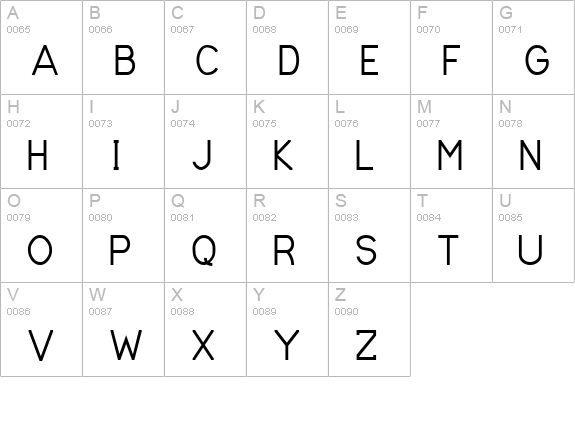
Math Major Font Details
Introducing Math Major font - a meticulously crafted typeface designed for all the math enthusiasts out there. This font is the perfect blend of elegance and functionality, making it an ideal choice for any math-related project. With its clean and precise lines, Math Major font captures the essence of mathematical precision, while adding a touch of sophistication to your designs. Whether you are working on an academic paper, a textbook, or a presentation, this font will bring clarity and professionalism to your work. But what truly sets Math Major font apart is the fact that it is completely free. Yes, you heard it right - this incredible font is available to download at absolutely no cost. So, whether you are a student, a teacher, or a professional mathematician, you can enjoy the benefits of this exceptional font without spending a penny. To get your hands on Math Major font, simply visit FontsMarket.com, the leading online platform for font enthusiasts. There, you will find a vast collection of fonts, including Math Major, all available for free download. FontsMarket.com ensures a seamless and hassle-free experience, allowing you to quickly and easily access the font that perfectly suits your needs. So why wait? Enhance your mathematical documents, presentations, and projects with Math Major font today. Download it for free at FontsMarket.com and take your math-related designs to a whole new level of excellence and professionalism.